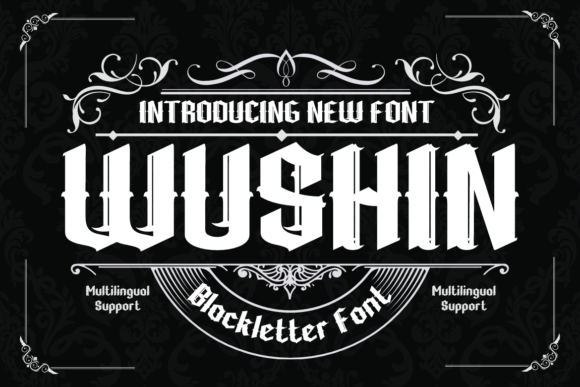
Introducing Wushin Font - A Blackletter Masterpiece for Exquisite Typography
In the realm of design, typography holds the power to transform ordinary words into captivating visual narratives. Allow us to introduce you to Wushin Font, a blackletter masterpiece crafted by twinletter, the masterminds behind exceptional fonts. This font family exudes an aura of timeless elegance, perfectly suited for projects seeking a refined Gothic touch.
Wushin Font: A Journey Through History and Aesthetics
Wushin Font draws inspiration from the rich history of blackletter scripts, paying homage to the intricate calligraphy that adorned ancient manuscripts and royal proclamations. Its meticulously designed characters evoke a sense of heritage and tradition, while simultaneously embracing a modern twist that ensures its relevance in contemporary design.
The Allure of Wushin Font: Why Designers Love It
With its distinctive blackletter style and an array of charming and harmonious shapes, Wushin Font offers endless possibilities for typographic exploration. Its versatility extends from logos and branding to posters and invitations, effortlessly elevating your designs with a touch of sophistication.
Embrace the Gothic Charm: Unleash Your Creativity
Wushin Font is the ideal choice for projects seeking a Gothic aesthetic. Its bold strokes and sharp edges exude an air of mystery and intrigue, making it perfect for designs that aim to captivate and leave a lasting impression. Whether you're crafting a horror movie poster or a historical novel cover, Wushin Font will add an extra layer of depth and intrigue.
A Font for Every Occasion: Endless Creative Possibilities
Wushin Font's versatility knows no bounds. It seamlessly adapts to a wide range of design styles, from vintage and retro to modern and contemporary. Its unique charm adds a touch of distinction to wedding invitations, product labels, and even social media graphics. With Wushin Font, your designs will radiate a timeless elegance that resonates with audiences of all tastes.